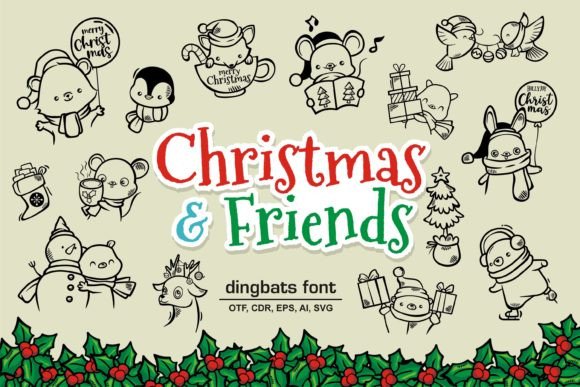
Christmas and Friends Font: A Festive Dingbats Font for Winter Crafts
As the winter season approaches, crafters and designers start looking for the perfect fonts to add a touch of festive cheer to their projects. If you’re searching for a font that embodies the spirit of Christmas and friendship, look no further than the Christmas and Friends Font. This stunning set of Christmas-themed dingbats is sure to bring warmth and joy to your winter crafts.
What is Christmas and Friends Font?
Christmas and Friends Font is a unique and sweet dingbats font that features a collection of Christmas-themed icons, shapes, and illustrations. The font is designed to evoke the feeling of warmth and togetherness that comes with the holiday season, making it perfect for a variety of winter crafts, from holiday cards and invitations to decorations and gift tags.
Characteristics of Christmas and Friends Font
So, what makes Christmas and Friends Font so special? Here are some of its key characteristics:
- Festive and Fun: The font features a wide range of Christmas-themed dingbats, including snowflakes, trees, stockings, and more.
- Warm and Inviting: The illustrations are designed to evoke a sense of warmth and coziness, perfect for creating holiday crafts that feel welcoming and inclusive.
- Easily Readable: The font is clear and easy to read, making it perfect for use in a variety of projects, from large signs to small gift tags.
- Versatile: The font can be used for a wide range of winter crafts, including holiday cards, invitations, decorations, and more.
Uses for Christmas and Friends Font
Christmas and Friends Font is a versatile font that can be used for a wide range of winter crafts. Here are some ideas to get you started:
Holiday Cards and Invitations
Create beautiful and festive holiday cards and invitations using Christmas and Friends Font. The font’s illustrations and dingbats are perfect for adding a touch of holiday cheer to your greetings.
Winter Decorations
Add a touch of festive flair to your winter decorations with Christmas and Friends Font. Use the font to create signs, banners, and other decorations that will make your home feel cozy and inviting.
Gift Tags and Wrapping
Make your gifts extra special with Christmas and Friends Font. Use the font to create beautiful gift tags and wrapping paper that will make your presents stand out.
Tips for Using Christmas and Friends Font
- Experiment with Sizes: The font’s illustrations and dingbats look great in a variety of sizes, so don’t be afraid to experiment with different sizes to find the one that works best for your project.
- Combine with Other Fonts: Christmas and Friends Font pairs well with a variety of other fonts, so try combining it with your favorite fonts to create a unique look.
- Use for Colorful Projects: The font’s illustrations and dingbats are perfect for colorful projects, so try using it to create bright and cheerful winter crafts.
Why Choose Christmas and Friends Font?
- Unique and Festive: The font’s illustrations and dingbats are unlike anything you’ve seen before, making it the perfect choice for crafters and designers who want to create something truly special.
- Easily Customizable: The font is easy to customize, so you can adjust it to fit your project’s needs.
- Perfect for Winter Crafts: The font is specifically designed for winter crafts, making it the perfect choice for holiday cards, decorations, and more.
Christmas and Friends Font is a sweet, festive, and warm dingbats font that’s perfect for winter crafts. With its unique and festive illustrations, easily readable design, and versatility, it’s the perfect choice for crafters and designers who want to add a touch of holiday cheer to their projects. Whether you’re creating holiday cards, decorations, or gift tags, Christmas and Friends Font is sure to bring warmth and joy to your winter crafts.